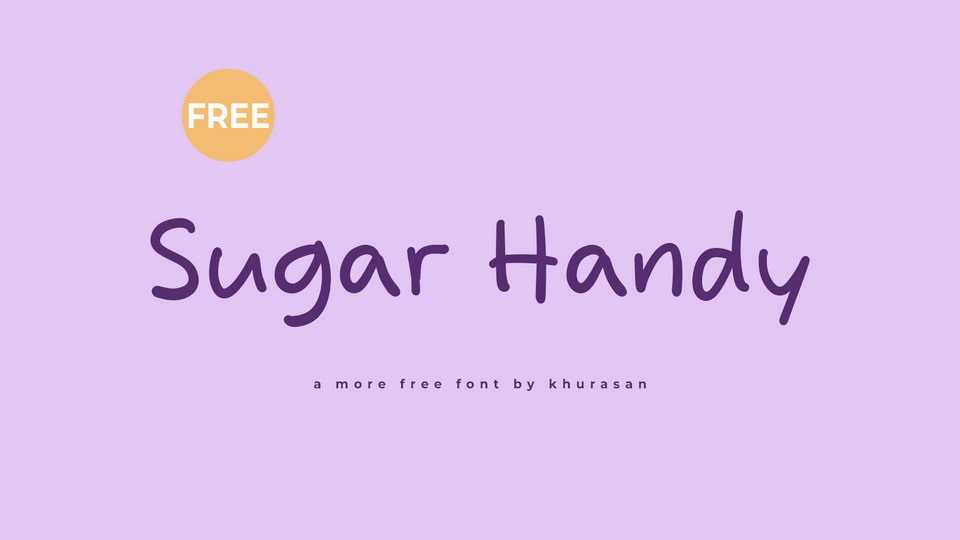
Download Sugar Handy font, a casual and natural handwritten typeface that embodies a relaxed and carefree vibe with its irregular strokes and effortless charm. Sugar Handy font is perfect for projects that seek a laid-back and approachable feel, from friendly greeting cards to cozy blog headers.